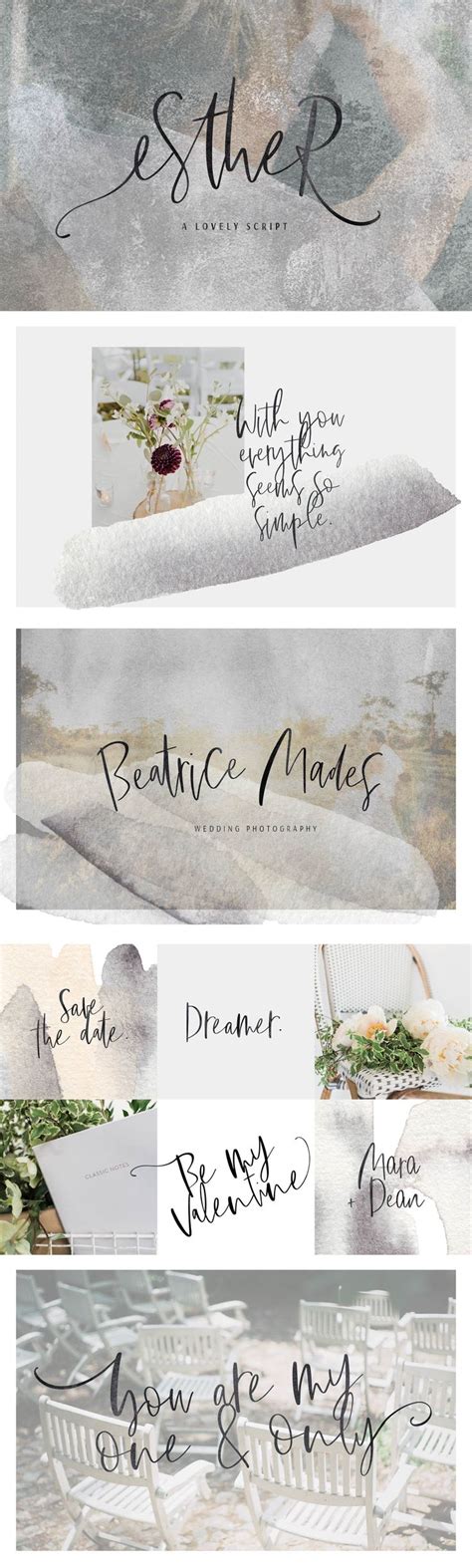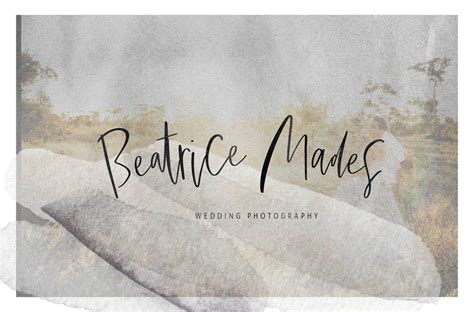
A fun and casual handwritten brush typeface.
Its romantic handwritten look makes it the perfect fit for feminine logos. Download esther font at fontsmarket.com, the largest collection of amazing freely available fonts for windows and mac. The best selection of script fonts for windows and macintosh. It's free style look makes it the perfect fit for moodboards, logos, blog posts, scrapbooking designs and invitations. Script font is a broad style that refers to any typeface that looks like it was drawn by hand. .font, font download, feminine font, calligraphy font, cute script font, casual calligraphy font. Esther is a handwritten signature typeface coming in two different versions with a lot of alternates, ligatures & swashes. Шрифт wild flower script cyrillic. Download 10,000 fonts with one click for $19.95. Thank you for choosing fontsmarket.com to download esther font. Каллиграфические и скриптовые шрифты с кириллицей. Script typefaces are based upon the varied and often fluid stroke created by handwriting, pretty much like the cursive fonts just typically more elegant. The father is a casual script font with upper & lowercase letters, numbers & punctuation, ligatures.
Brendel :esther full font name: The father is a casual script font with upper & lowercase letters, numbers & punctuation, ligatures.
Some scripts are more formal like elegant calligraphy, while others are casual like cursive handwriting. I've collected some cute aesthetic fonts which can be downloaded from dafont to phonto or other apps!✧ discord server. Script font is a broad style that refers to any typeface that looks like it was drawn by hand. The father is a casual script font with upper & lowercase letters, numbers & punctuation, ligatures. A fun and casual handwritten brush typeface. Licensed for personal and commercial use. They are organized into highly regular formal types. Archive of freely downloadable fonts. Script typefaces are based upon the varied and often fluid stroke created by handwriting, pretty much like the cursive fonts just typically more elegant. Rupster script free / hipster #otf #кириллица #латиница. It's free style look makes it the perfect fit for moodboards, logos, blog posts, scrapbooking designs and invitations. Esther is a handwritten signature typeface coming in two different versions with a lot of alternates, ligatures & swashes. .font, font download, feminine font, calligraphy font, cute script font, casual calligraphy font.
Its romantic handwritten look makes it the perfect fit for feminine logos. There are a few different aesthetic font styles that i know of.
Шрифт wild flower script cyrillic. Rupster script free / hipster #otf #кириллица #латиница.
Brendel :esther full font name: The best selection of script fonts for windows and macintosh.
Some scripts are more formal like elegant calligraphy, while others are casual like cursive handwriting. Script font is a broad style that refers to any typeface that looks like it was drawn by hand.
The father is a casual script font with upper & lowercase letters, numbers & punctuation, ligatures. Download esther font at fontsmarket.com, the largest collection of amazing freely available fonts for windows and mac.
Script font is a broad style that refers to any typeface that looks like it was drawn by hand. Licensed for personal and commercial use.
There are a few different aesthetic font styles that i know of. Esther is a handwritten signature typeface coming in two different versions with a lot of alternates, ligatures & swashes.